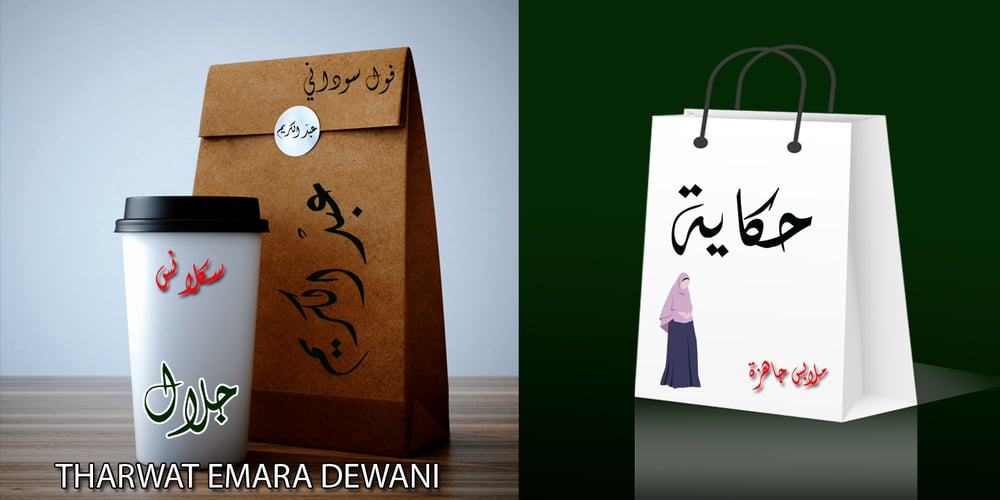
TE Dewani Font Family was designed by Tharwat Mohamed Emara and published by Tharwat Emara. TE Dewani contains 1 styles and family package options. The Dewani font is a font of original Arabic fonts and is specialized in writing in the offices of the Sultan and the kings of the Arabs. It is also one of the most beautiful Arabic fonts as it has the flexibility to write official graduation certificates, certificates of appreciation, scientific progress and decorations. It is also commonly used in writing posters and sequences for serials, films, medals and decorations on clothes. The Dewani font has its aesthetics derived from its round and interlocking letters.